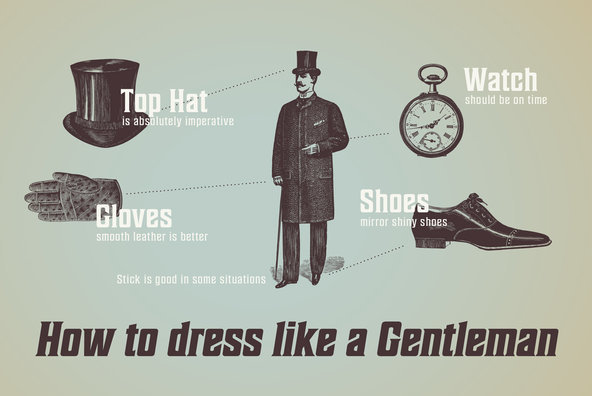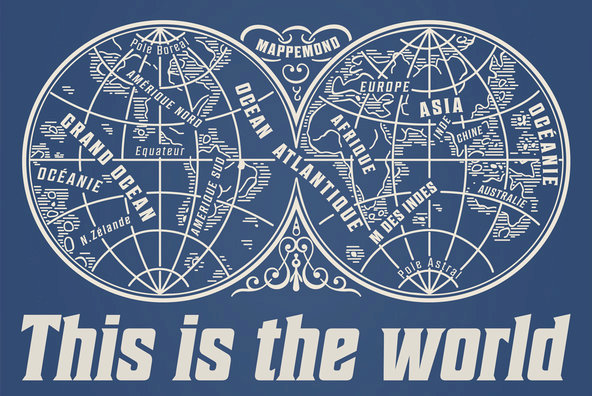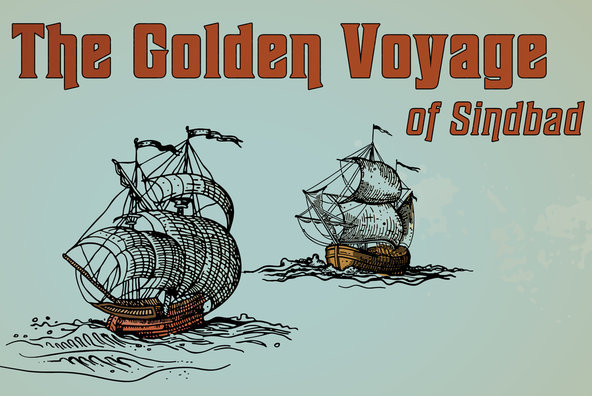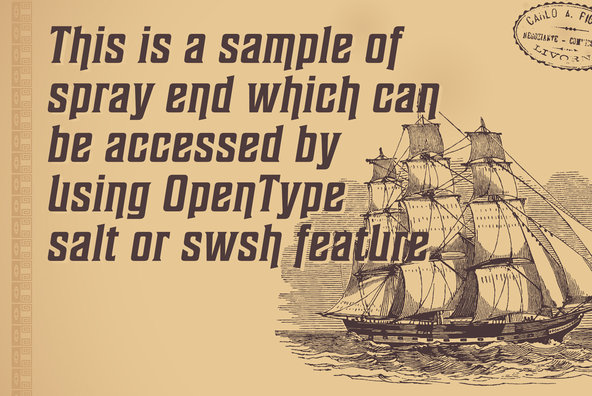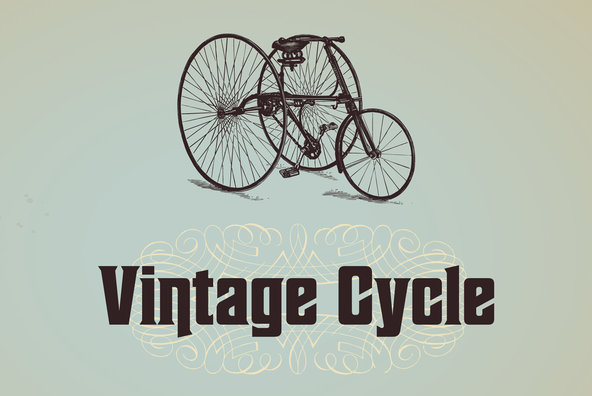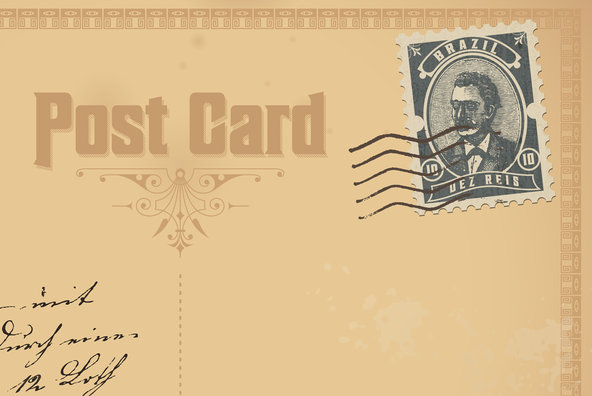
Sheepman
Foundry: Ryoichi Tsunekawa
Sheepman is inspired by and based on retro William Page s No.506 typeface which is popular wooden type fonts of the 19th century. To make soft and natural impressions the original polygonal design was changed to rounded design. All glyphs had been designed carefully to be retro looking of the old time and to fill all with nostalgia. This modern wood type includes 3 weights and thier matching slanted style and all style have sprayed ends(begining) alternates for F H L M N P U f h j m n p q and u which can be accessed by using OpenType Stylistic alternates or swash alts. Sheepman will be the best solution for posters titles and anywhere you need vintage lettering.